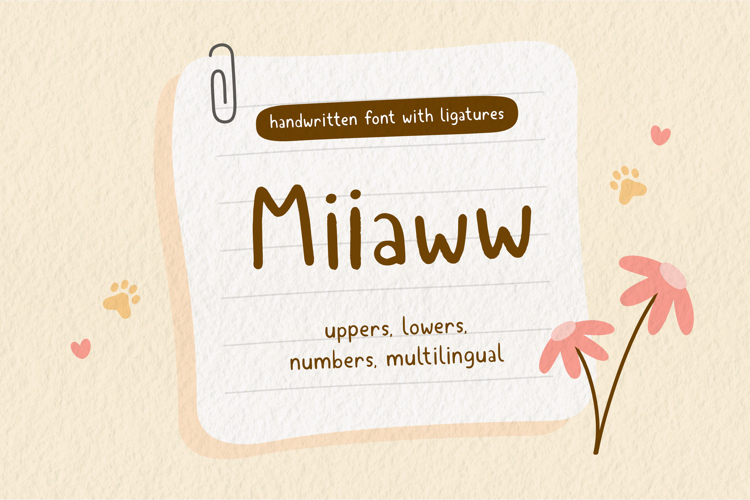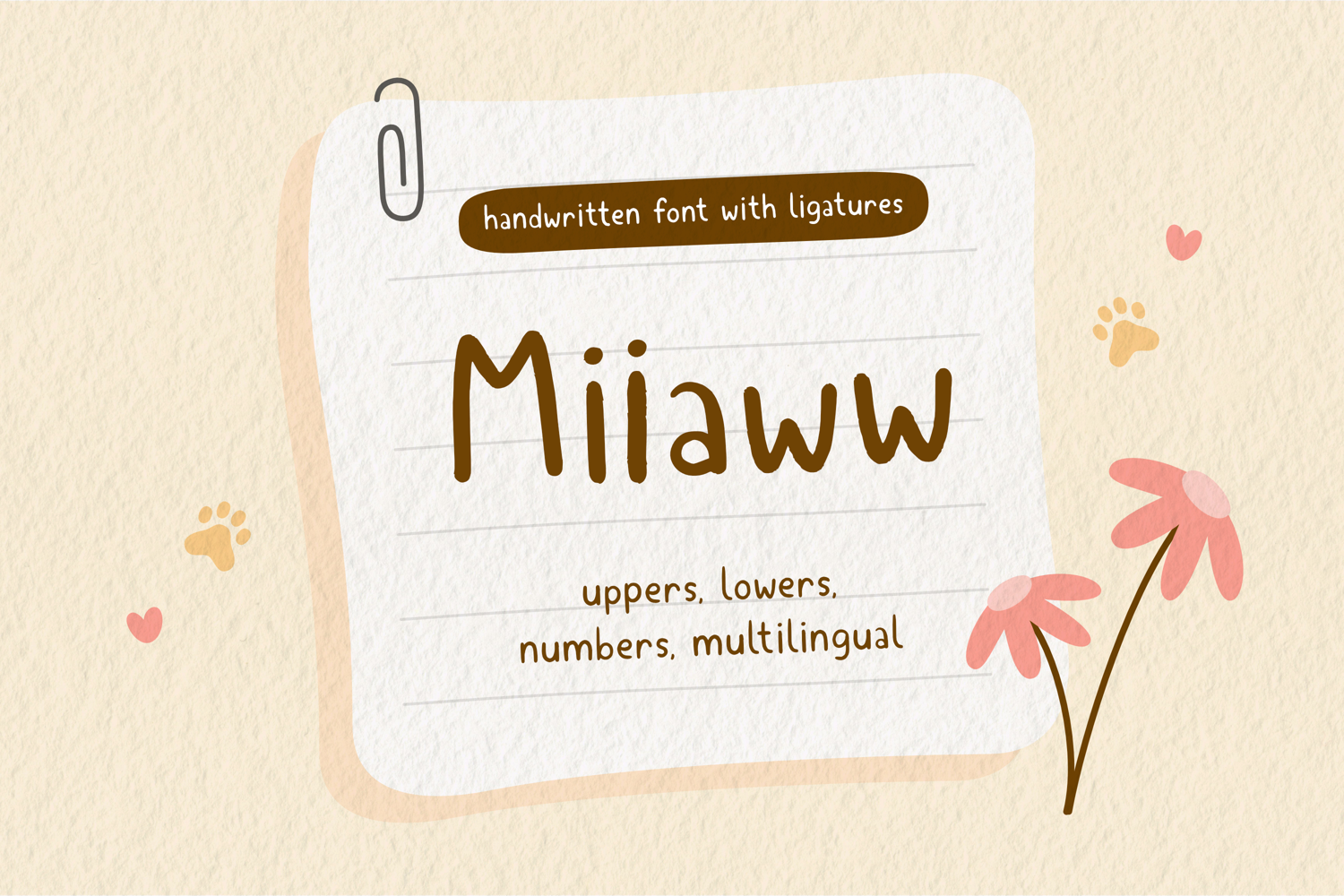
Introducing Miiaww, a charming handwritten font with unique ligatures. It is perfectly suited for posters, printed quotes, digital designs, or any project that requires a fun yet polished look!
Miiaww